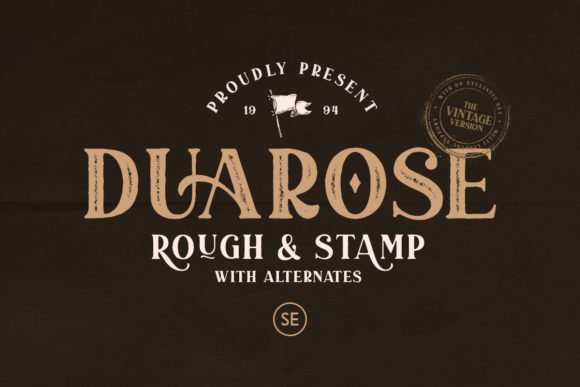
Duarose Font: Elevate Your Designs with Elegance and Charm
In the world of typography, fonts play a crucial role in conveying the tone and aesthetic of a design project. For those seeking an elegant and charming appearance, the Duarose font is an excellent choice. This beautiful serif font boasts a vintage feel, making it perfect for a wide range of design applications. In this article, we’ll explore the features and benefits of the Duarose font, and how it can elevate your designs to new heights.
What is Duarose Font?
Duarose is a sophisticated serif font that exudes elegance and refinement. Its classic design is reminiscent of traditional typography, yet it has a unique charm that sets it apart from other fonts in its category. With its vintage feel, Duarose is ideal for designers looking to add a touch of nostalgia and sophistication to their work.
Key Features of Duarose Font
So, what makes Duarose font so special? Here are some of its key features:
- Elegant Serif Design: Duarose boasts a beautiful serif design that adds a touch of elegance to any text.
- Vintage Feel: The font’s classic design gives it a vintage feel that’s perfect for designs that require a nostalgic touch.
- PUA Encoded: Duarose is PUA (Private Use Area) encoded, which means you can access all the glyphs and swashes with ease.
- Charming Appearance: The font’s unique design elements give it a charming appearance that’s sure to captivate your audience.
Benefits of Using Duarose Font
So, why should you choose Duarose font for your design projects? Here are some benefits of using this beautiful font:
- Enhance Your Brand’s Image: Duarose font can help you create a sophisticated and elegant brand image that resonates with your target audience.
- Stand Out from the Crowd: The font’s unique design elements will help your designs stand out from the crowd and grab attention.
- Perfect for Various Design Projects: Duarose is versatile and can be used for a wide range of design projects, including logos, brochures, posters, and more.
- Ease of Use: The font’s PUA encoding makes it easy to access all the glyphs and swashes, saving you time and effort.
Use Cases for Duarose Font
Duarose font is suitable for a variety of design projects that require an elegant and charming appearance. Here are some use cases for this beautiful font:
- Logo Design: Use Duarose font to create a sophisticated and elegant logo that represents your brand.
- Print Design: The font is perfect for print designs, such as brochures, posters, and business cards.
- Digital Design: Duarose can be used for digital designs, including website headers, social media graphics, and email templates.
- Packaging Design: The font’s vintage feel makes it suitable for packaging designs that require a nostalgic touch.
Tips for Using Duarose Font
To get the most out of Duarose font, here are some tips to keep in mind:
- Pair it with Other Fonts: Experiment with pairing Duarose font with other fonts to create a unique and visually appealing combination.
- Use it for Headings: The font’s elegant design makes it perfect for headings and titles.
- Adjust the Font Size: Experiment with different font sizes to create visual hierarchy and emphasis.
- Experiment with Colors: Try out different colors to find the perfect match for your design.
In conclusion, Duarose font is an excellent choice for designers seeking an elegant and charming appearance for their design projects. With its vintage feel, PUA encoding, and beautiful serif design, this font is perfect for a wide range of applications. By incorporating Duarose font into your designs, you can elevate your brand’s image, stand out from the crowd, and create visually appealing designs that captivate your audience.
Get Ready to Elevate Your Designs with Duarose Font